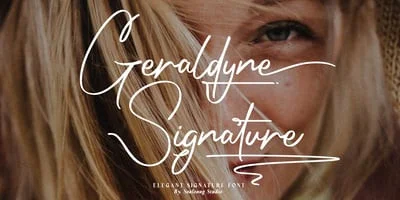
Geraldyne Signature Font
Geraldyne Signature Font is perfect for personal branding, signature logos, handwritten quotes, elegant stationery, wedding invitations, certificate designs, luxury product branding, and sophisticated social media graphics.
This font is exciting because it captures the authentic beauty of natural handwriting with elegant personal flair. Geraldyne Signature Font features flowing script letterforms with realistic ink texture that mimics genuine signature writing, making it ideal for projects that require personal authenticity and sophisticated handwritten elegance.
The Geraldyne Signature Font family includes regular, bold, light, and condensed variants, along with stylistic alternates and connecting ligatures that enhance its handwritten authenticity. Each weight maintains the font's personal character while providing different levels of script elegance for various signature and personal branding applications.
Whether you're creating distinctive personal brands, developing elegant wedding materials, or designing sophisticated certificate layouts, Geraldyne Signature Font delivers exceptional authenticity and personal touch. Its distinctive handwritten style makes it an excellent choice for designers seeking to add genuine signature elegance and personal sophistication to their projects. The font's versatility extends from digital signature applications to luxury print materials, ensuring consistent performance across all personal branding needs. With its meticulously crafted letterforms and natural flow, this typeface provides professional results that establish authentic personal presence with its unmistakable signature character and handwritten sophistication.